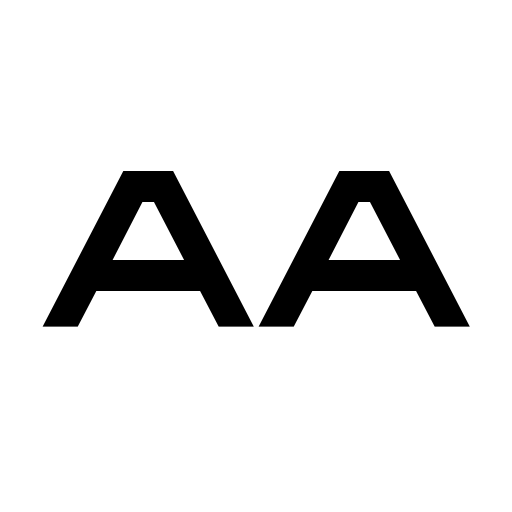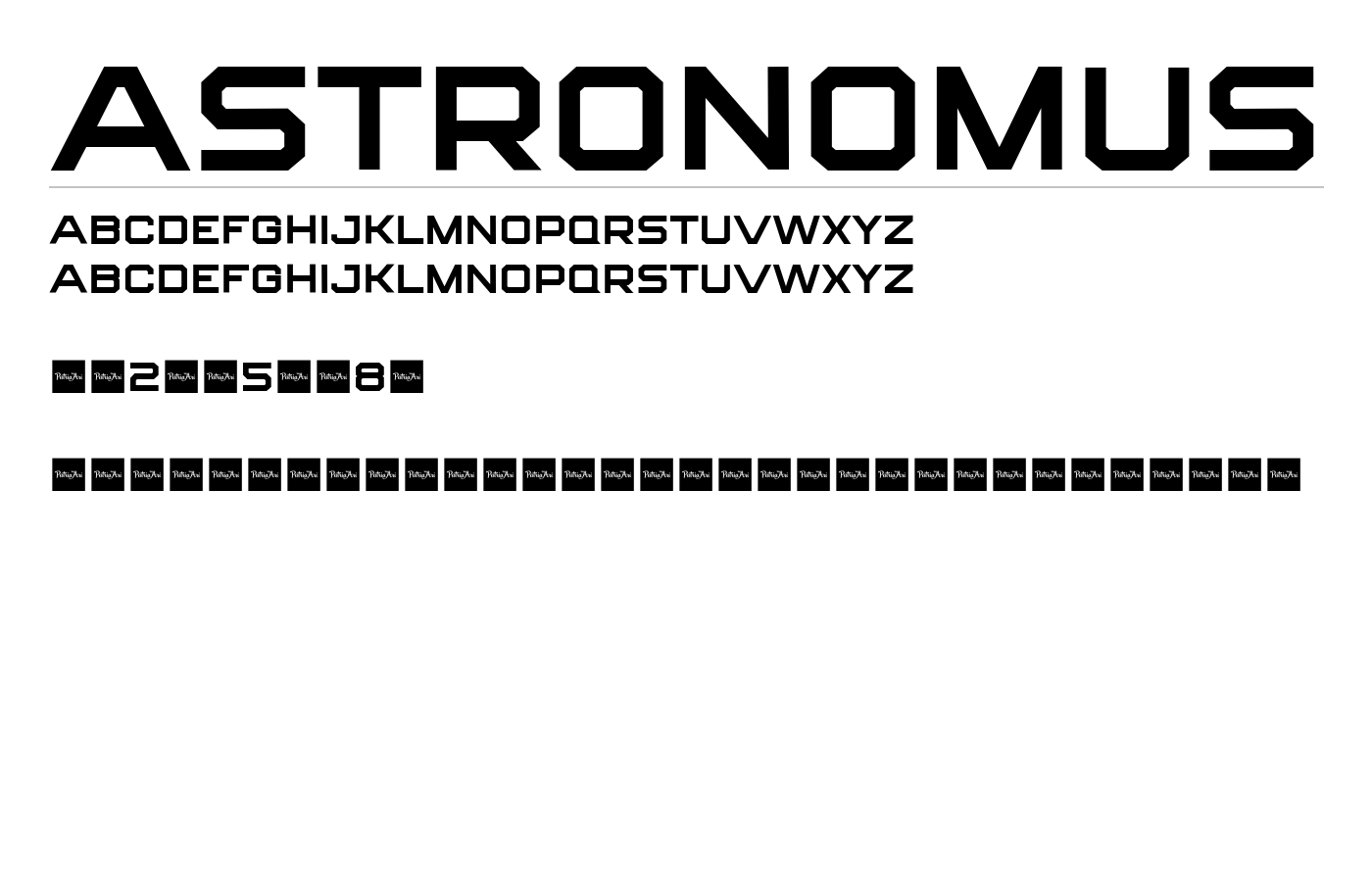
Astronomus is a bold, angular sans serif font with a futuristic and technical feel, characterized by its geometric shapes and monospaced appearance. Its strong, clean lines and sharp edges make it ideal for technology, science, gaming, or space-themed designs that require a modern and striking look. This font works best in headlines, logos, and branding where a distinctive, high-impact style is needed to convey innovation and precision.
Astronomus Font
About Astronomus Font
| Font family | Astronomus Font |
| Designer | Patria Ari Wijonarko |